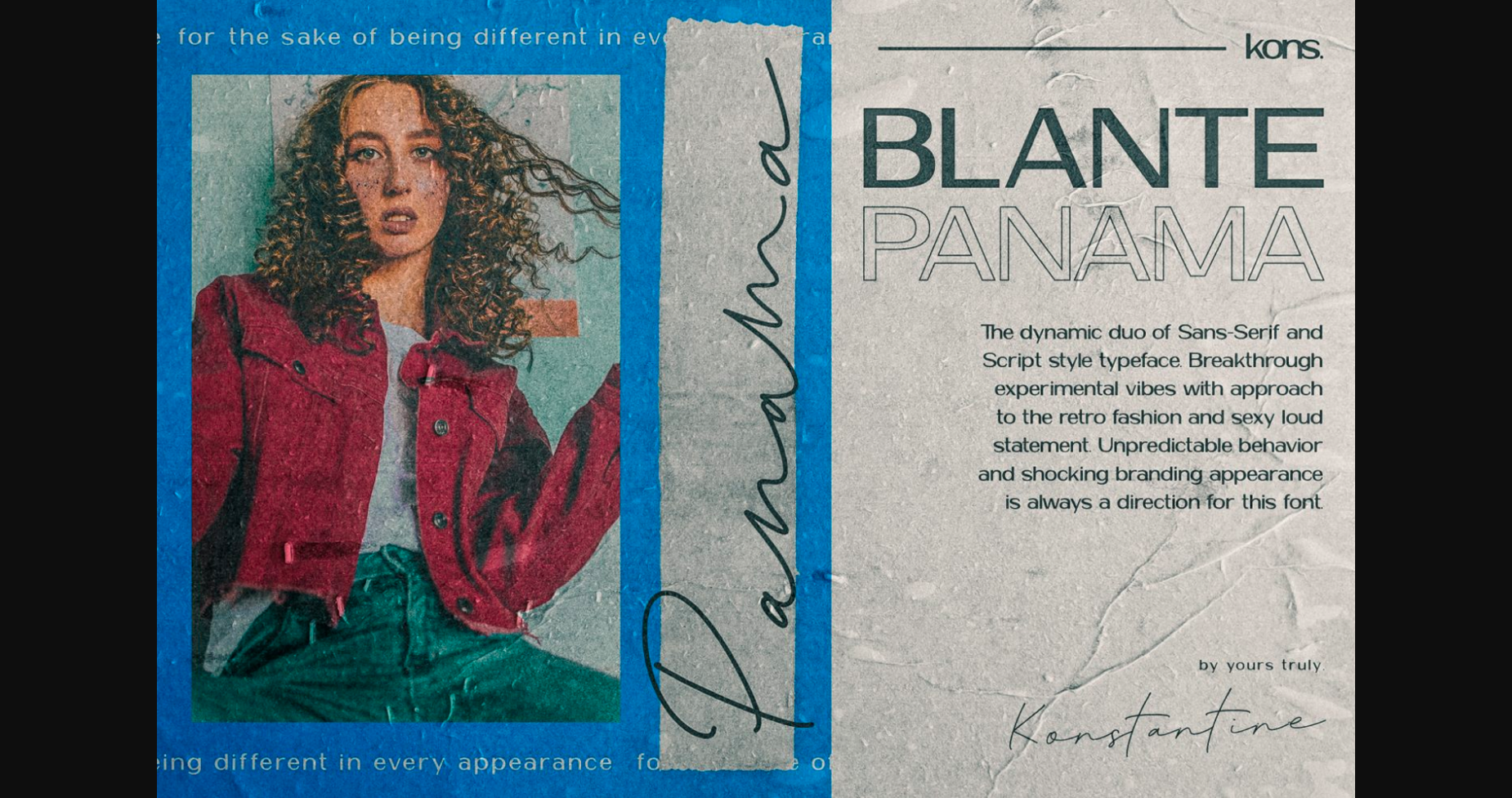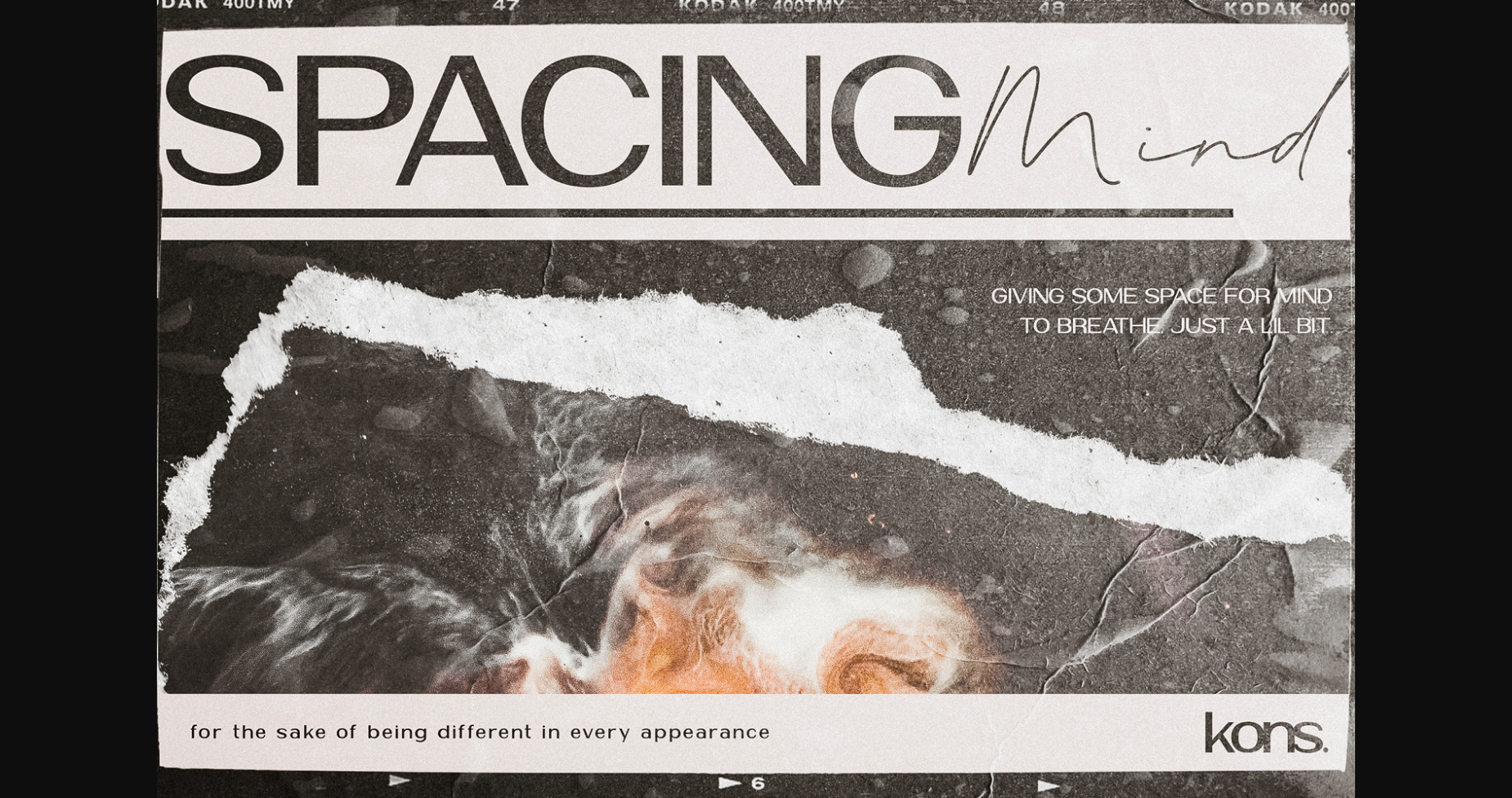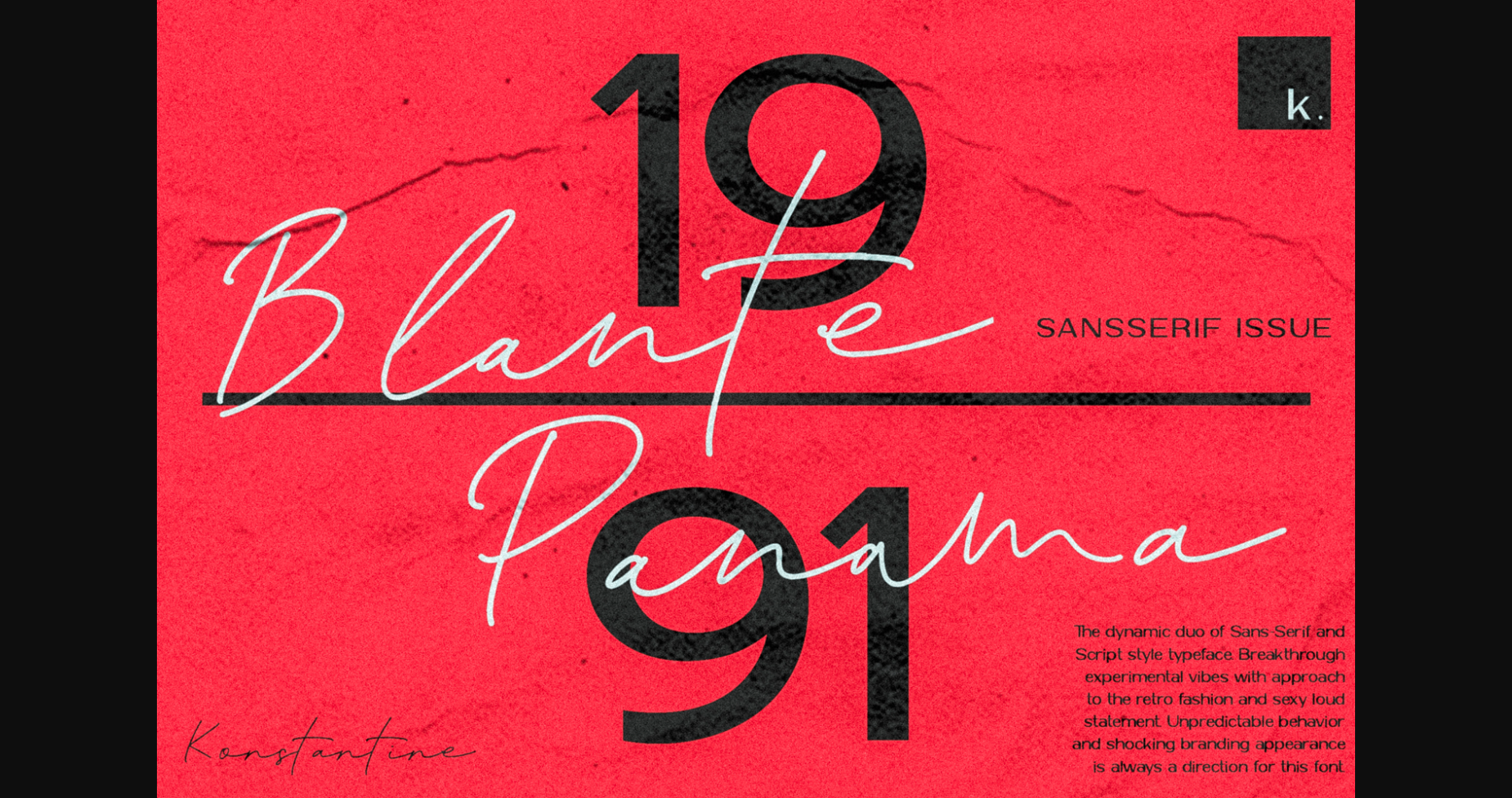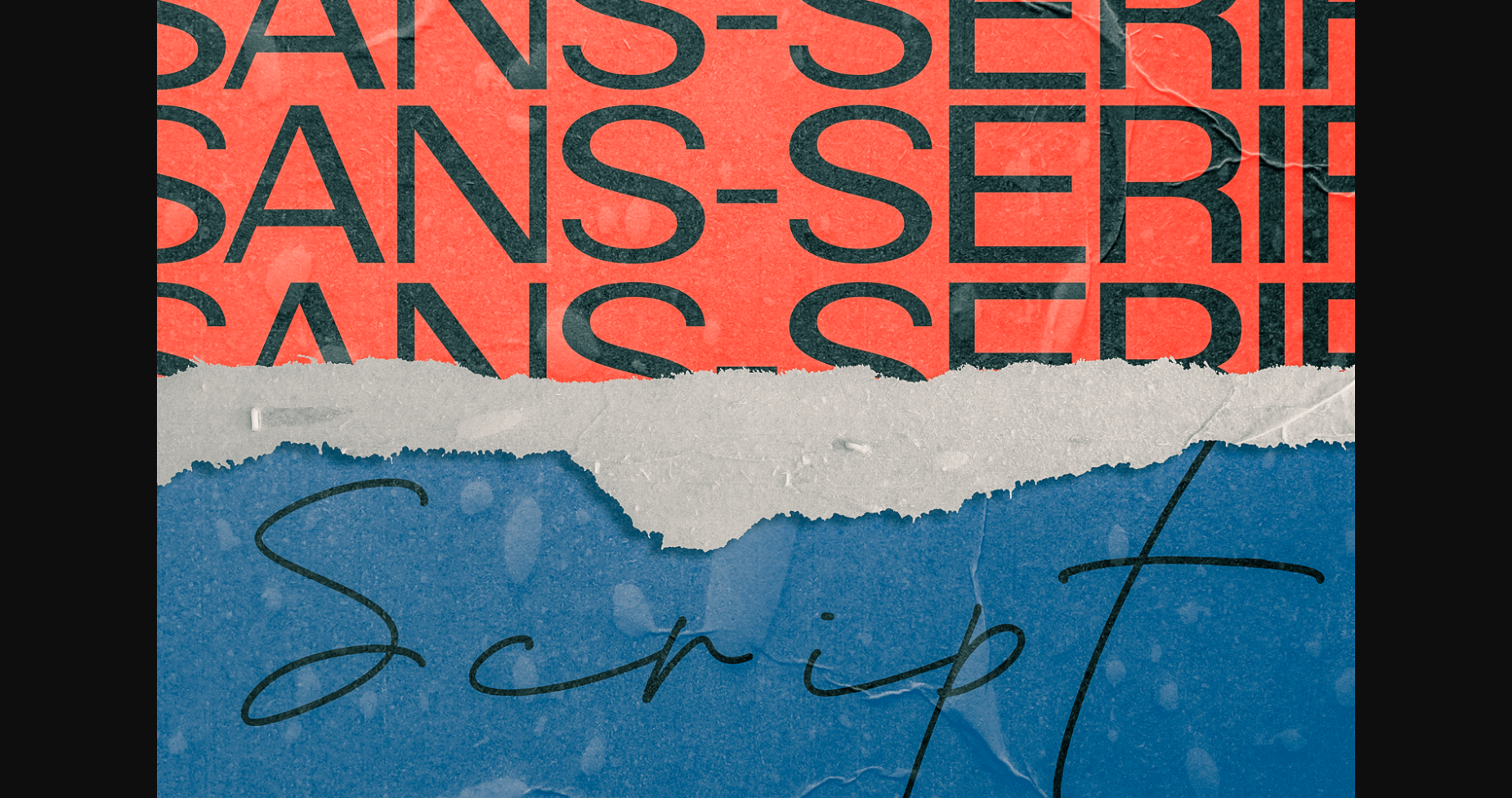
About Blante Panama Font
Blante Panama is a stunning and comprehensive duo font (script and sans serif), ideal for giving your projects a branded but friendly feel. The two included styles can be combined together perfectly but are also beautiful on their own.